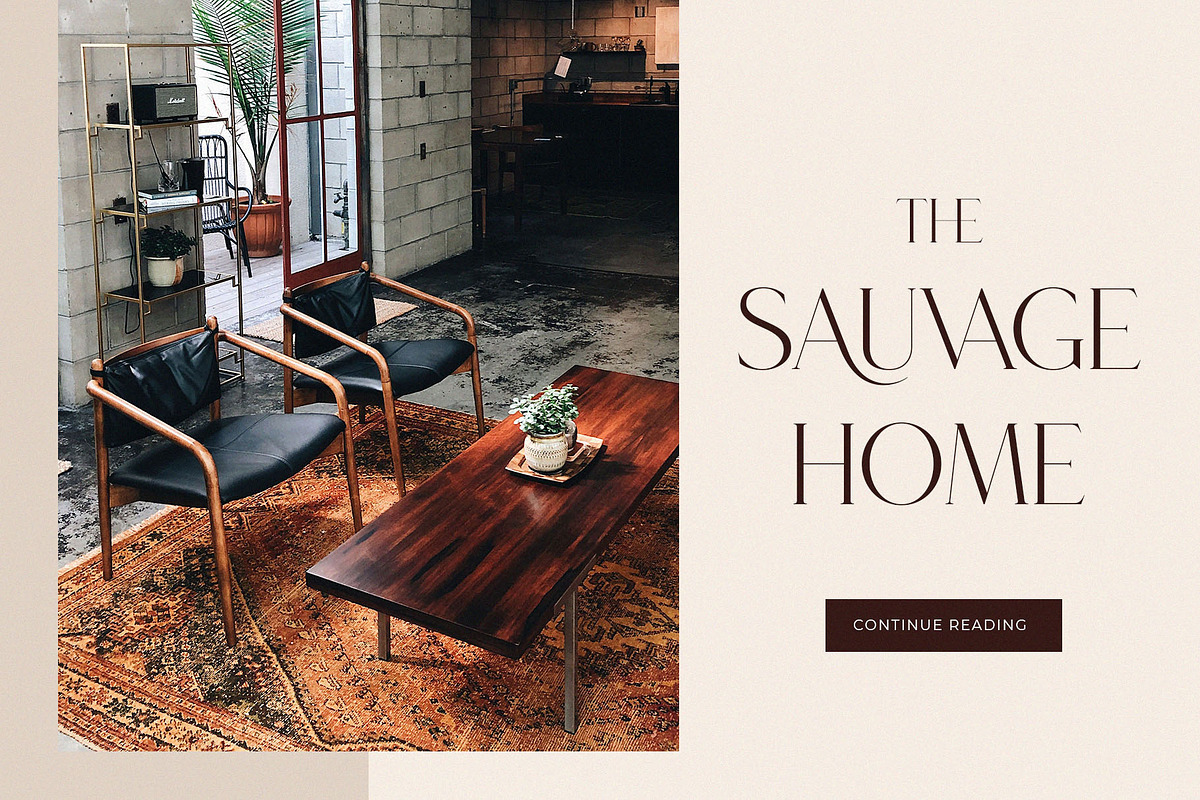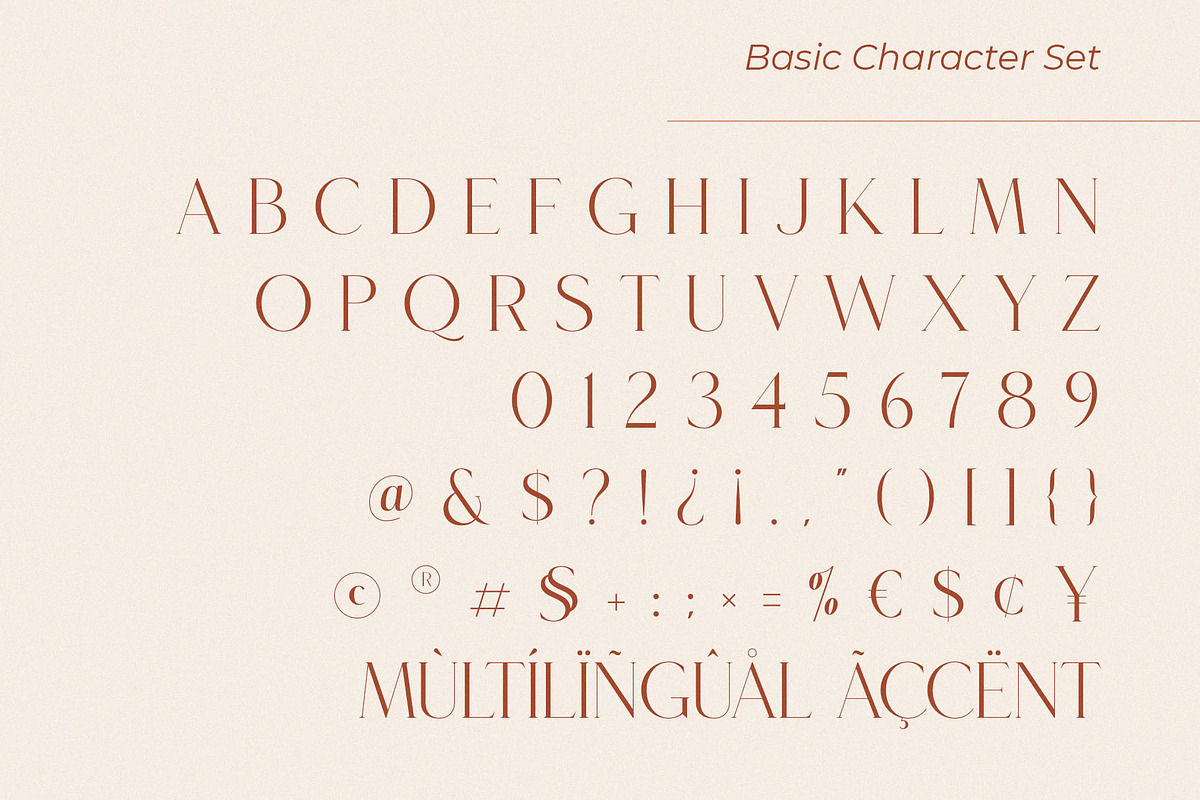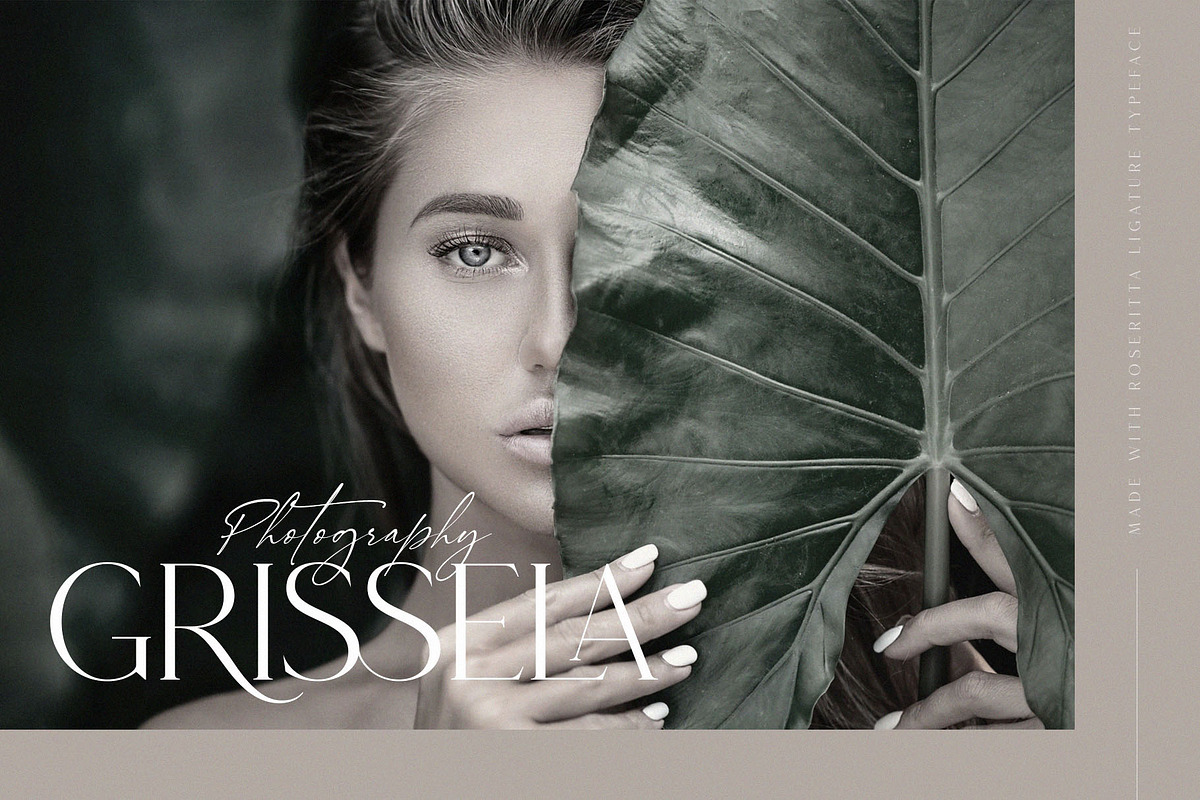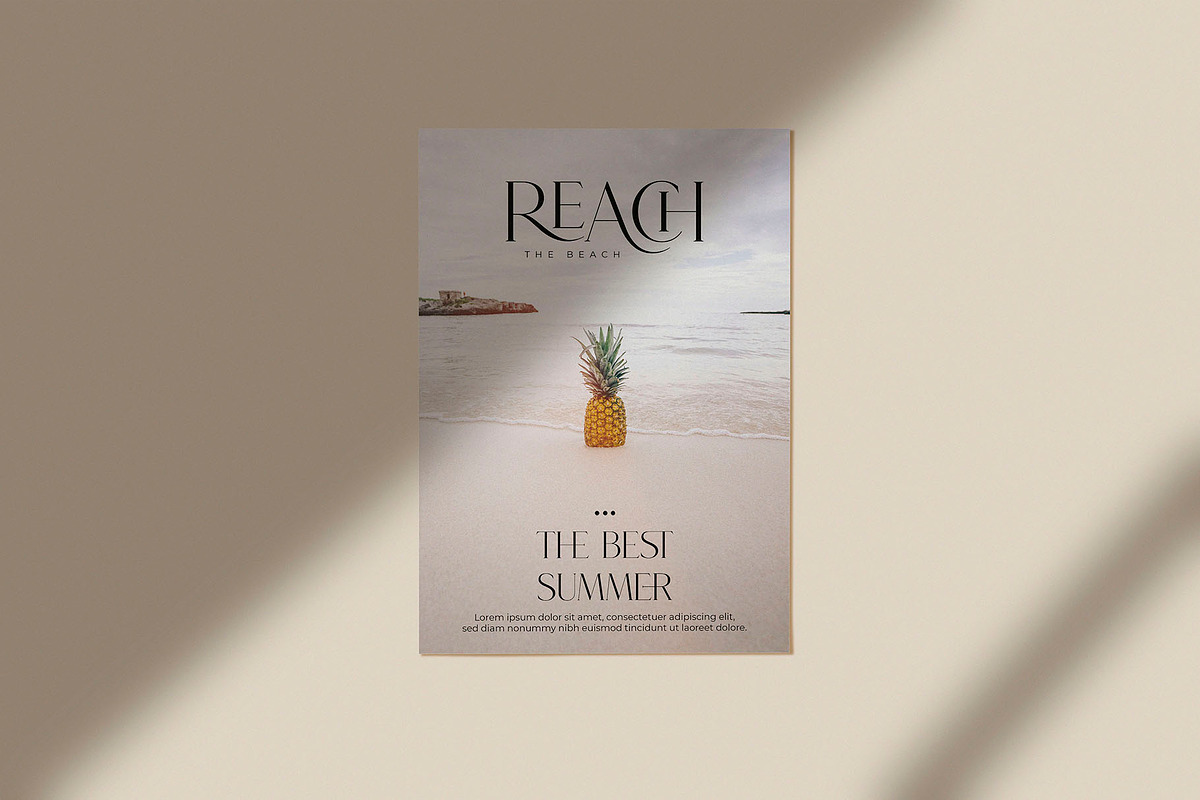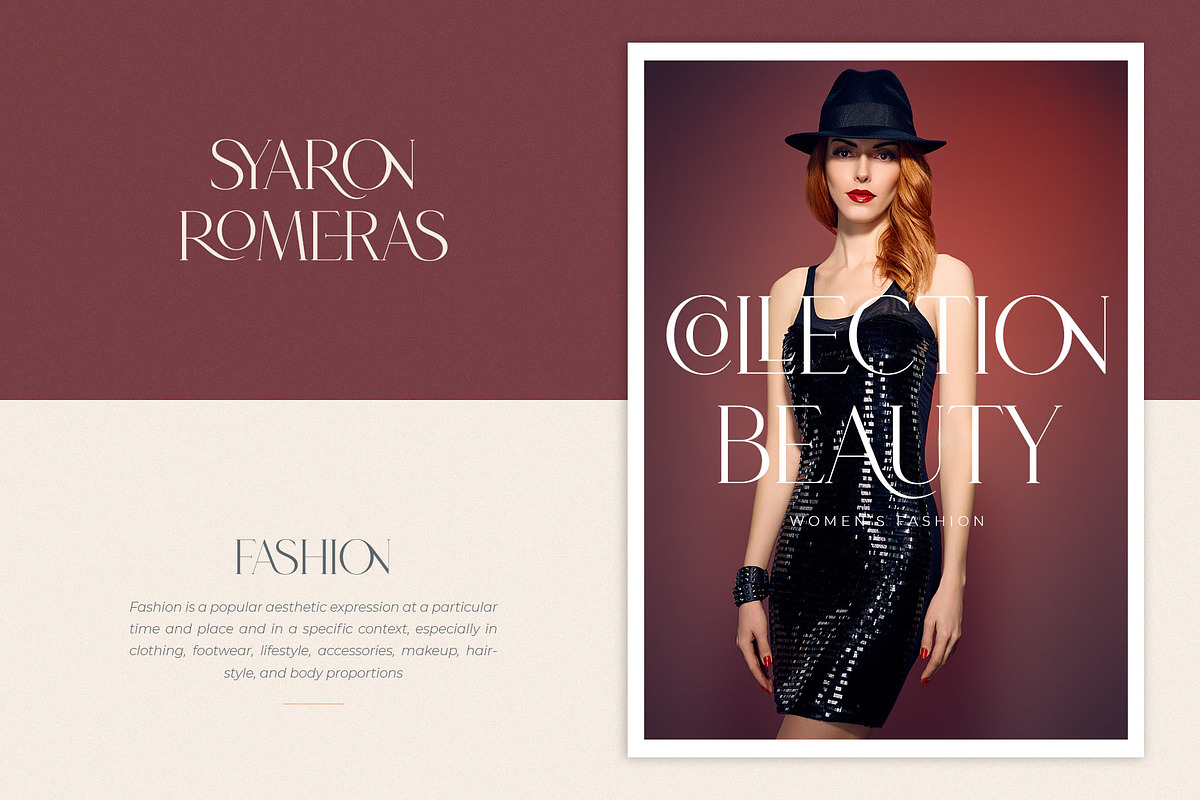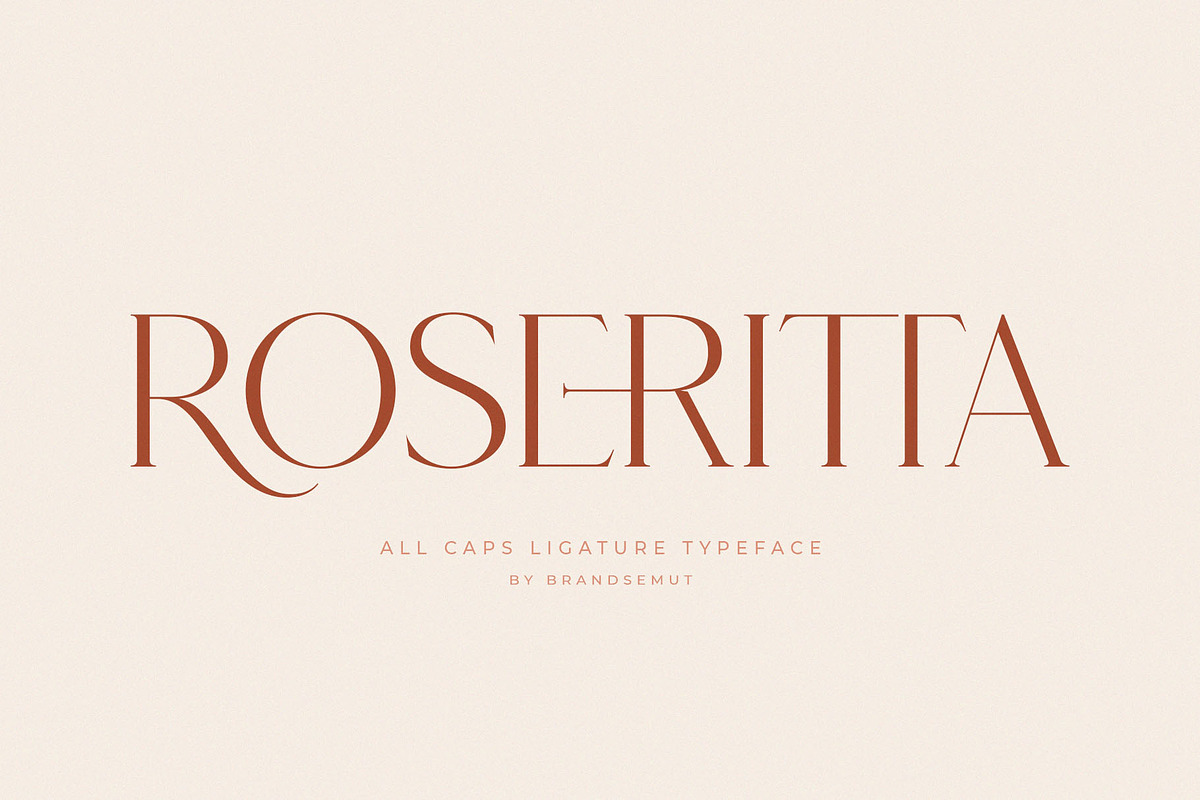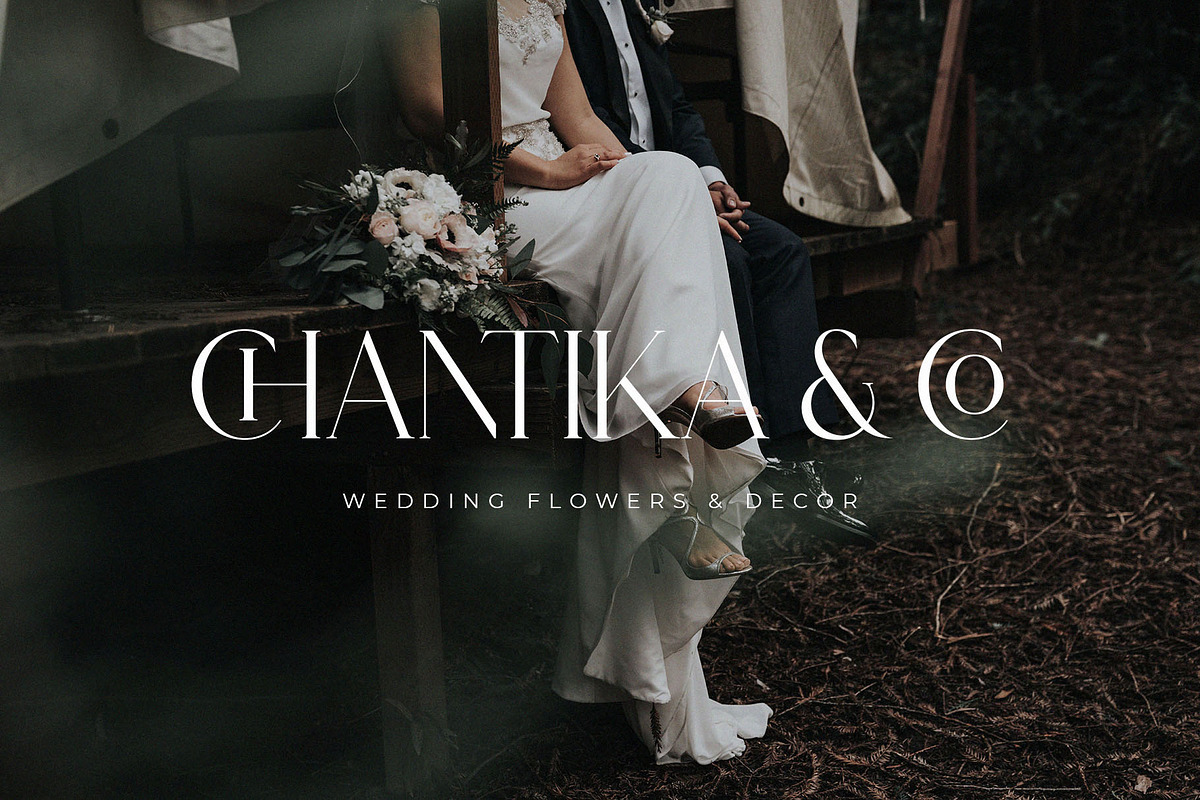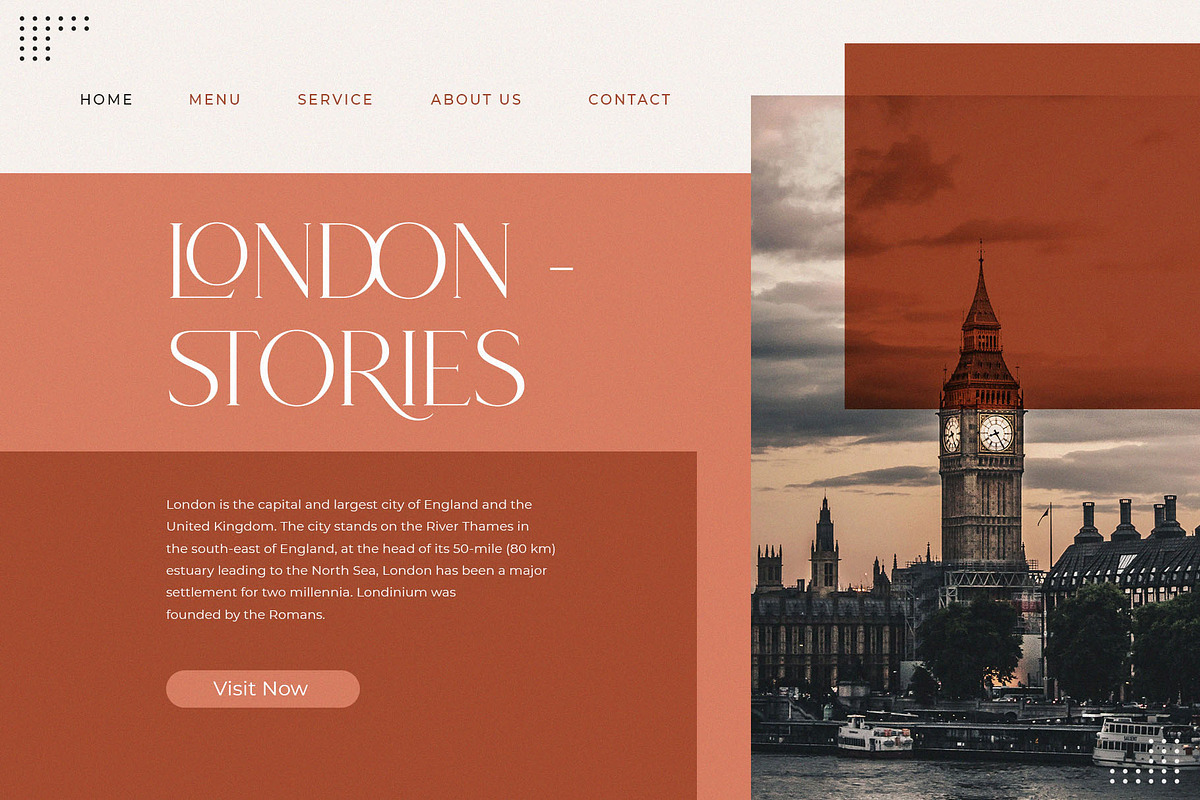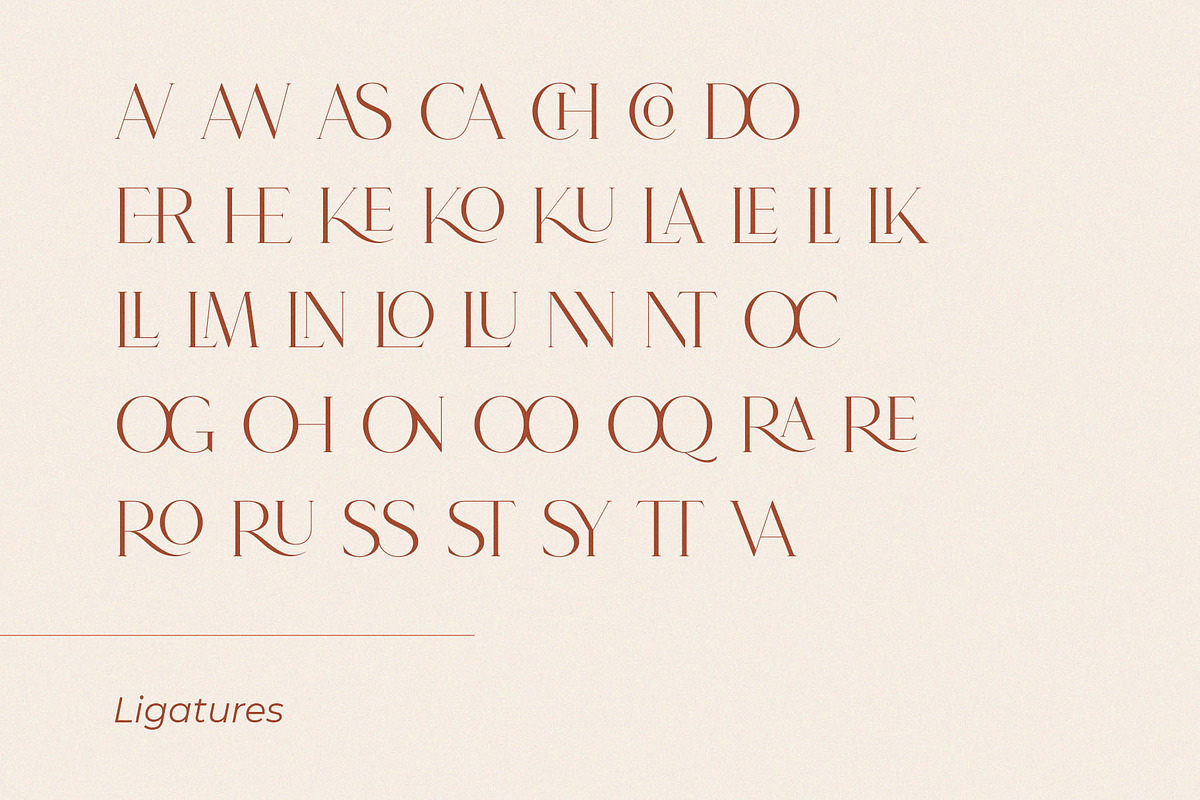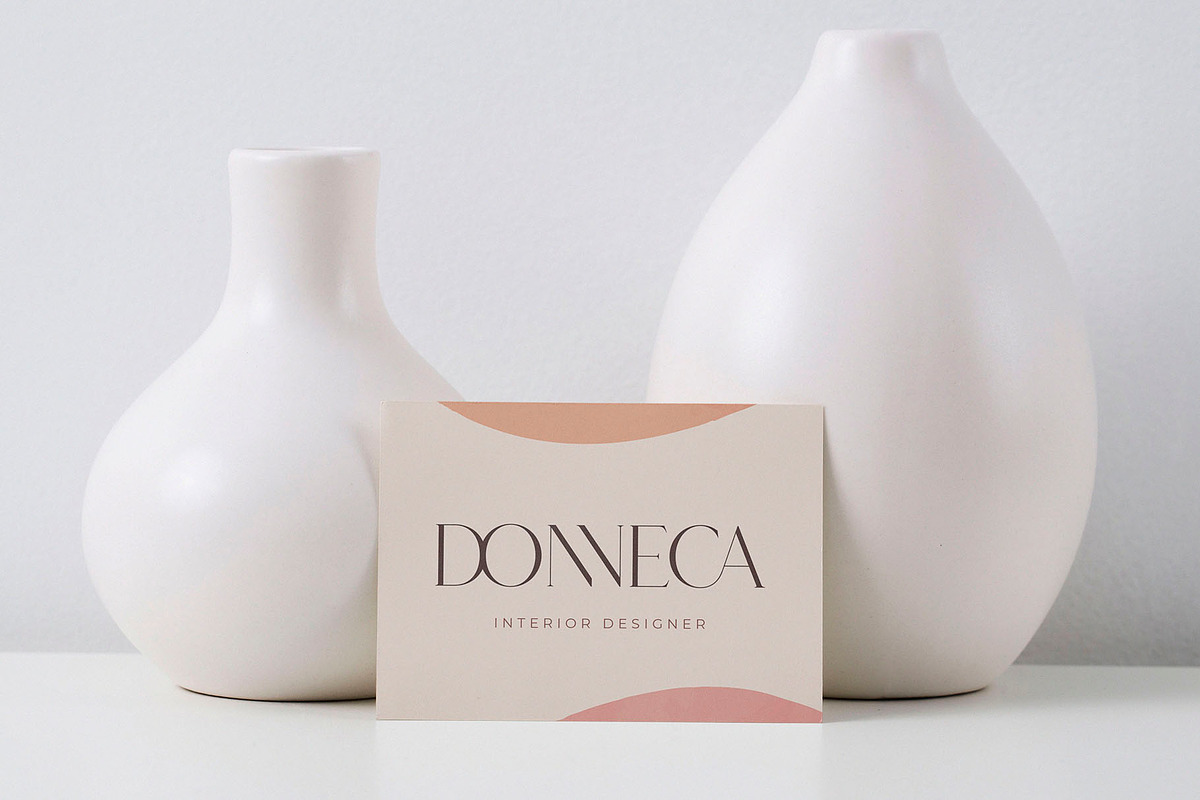
Roseritta - Ligature Serif
Hello, introducing the new Roseritta All Caps Ligature Serif!!! Roseritta is a elegant and classy serif typeface – This font is both modern and nostalgic and works great for logos, magazine, social media etc. Already matched up and ready to be used together for your next design! For those of you who are needing a touch of elegant, stylish, classy, chic and modernity for your designs, this font was created for you!
Roseritta was built with OpenType features and includes 38 ligatures, alternate, numbers, punctuation, and it also supports other languages.